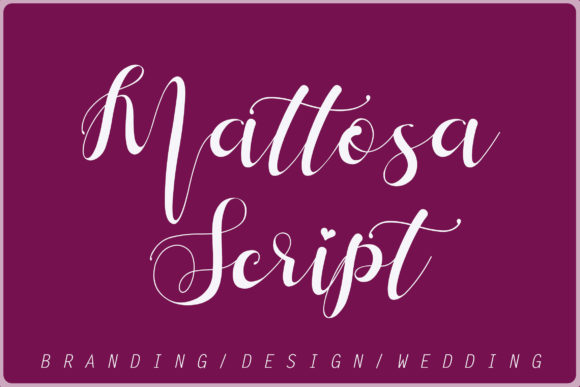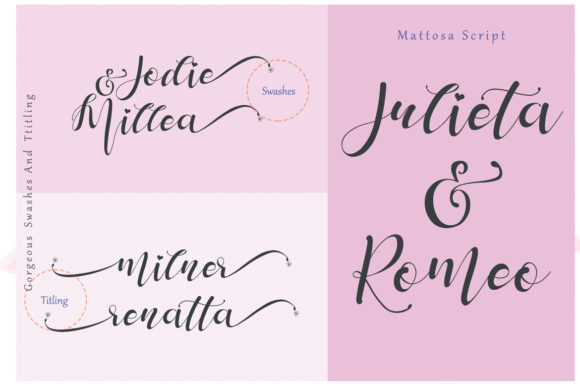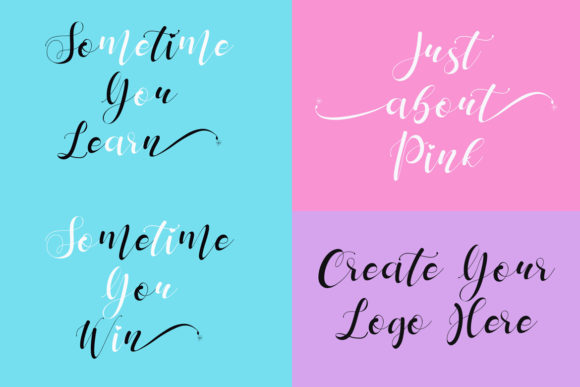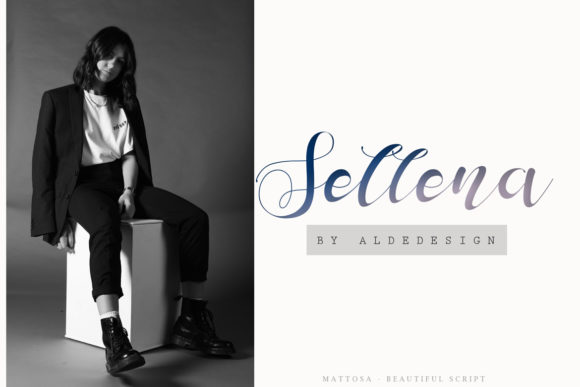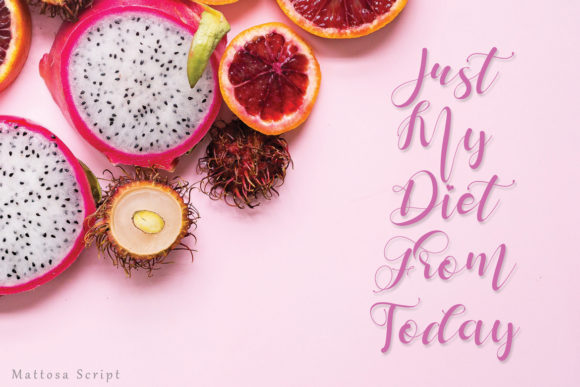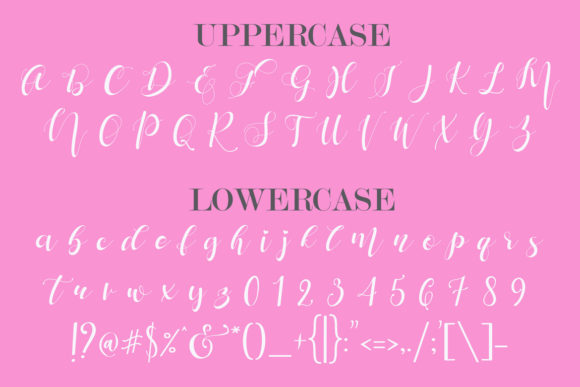
Mattosa Script Font
About Mattosa Script Font
The Mattosa is a beautiful script font. It has a natural handwritten feel which can be used to add a personal touch to your logos, headlines, invitations, branding, wedding stationary, clothing, and much more!